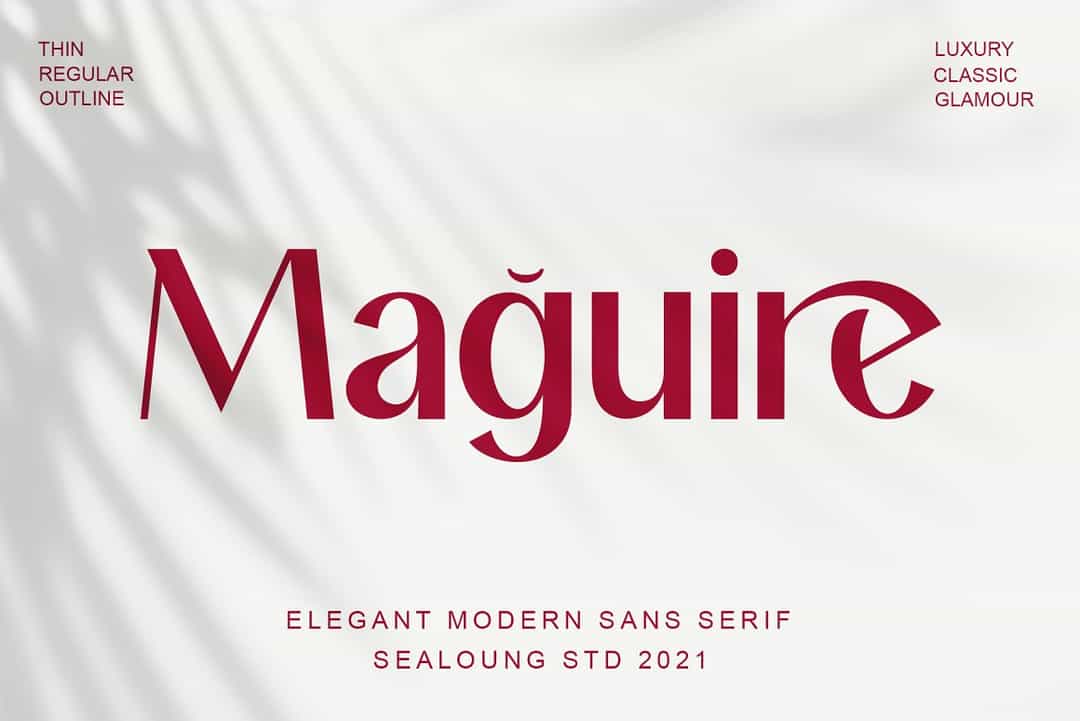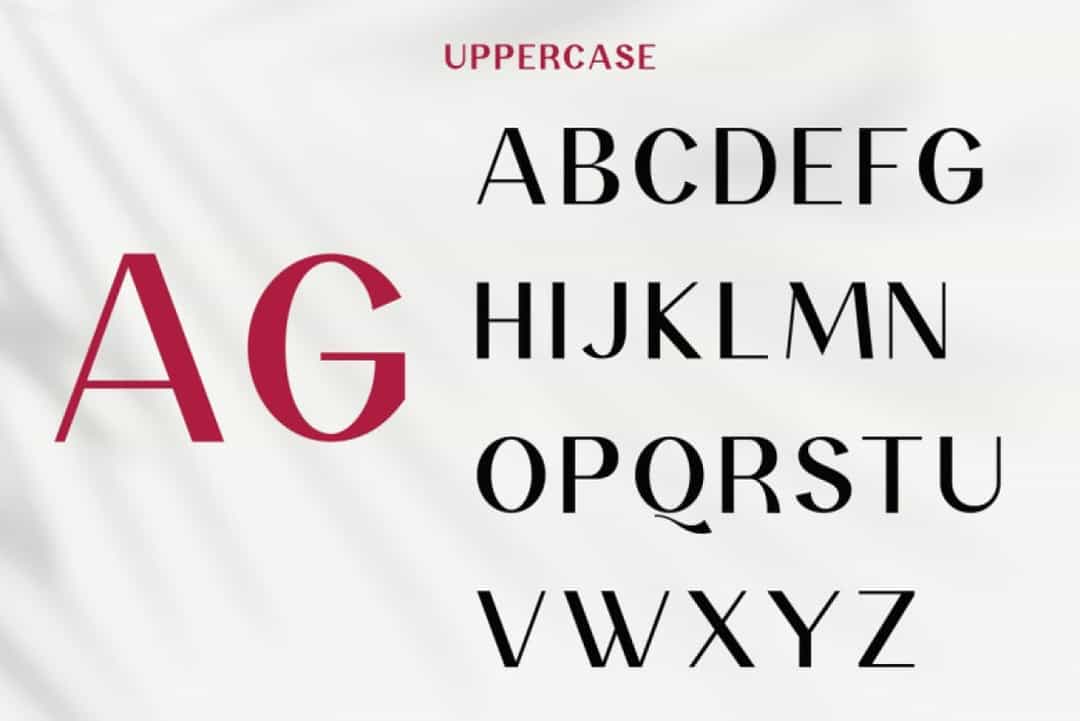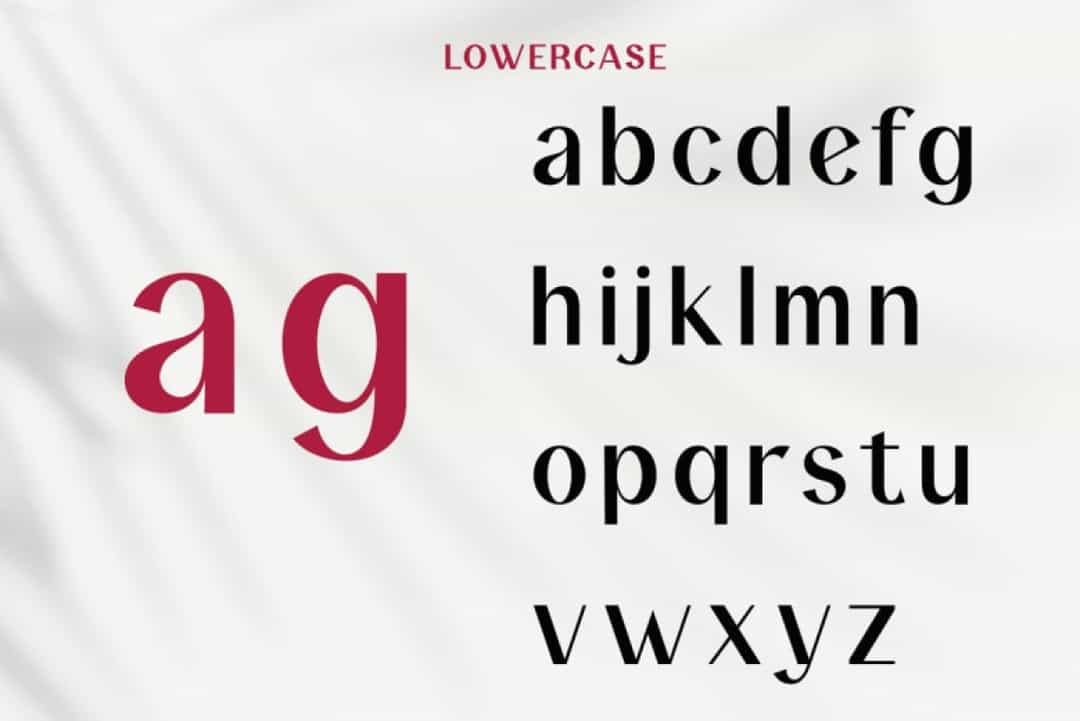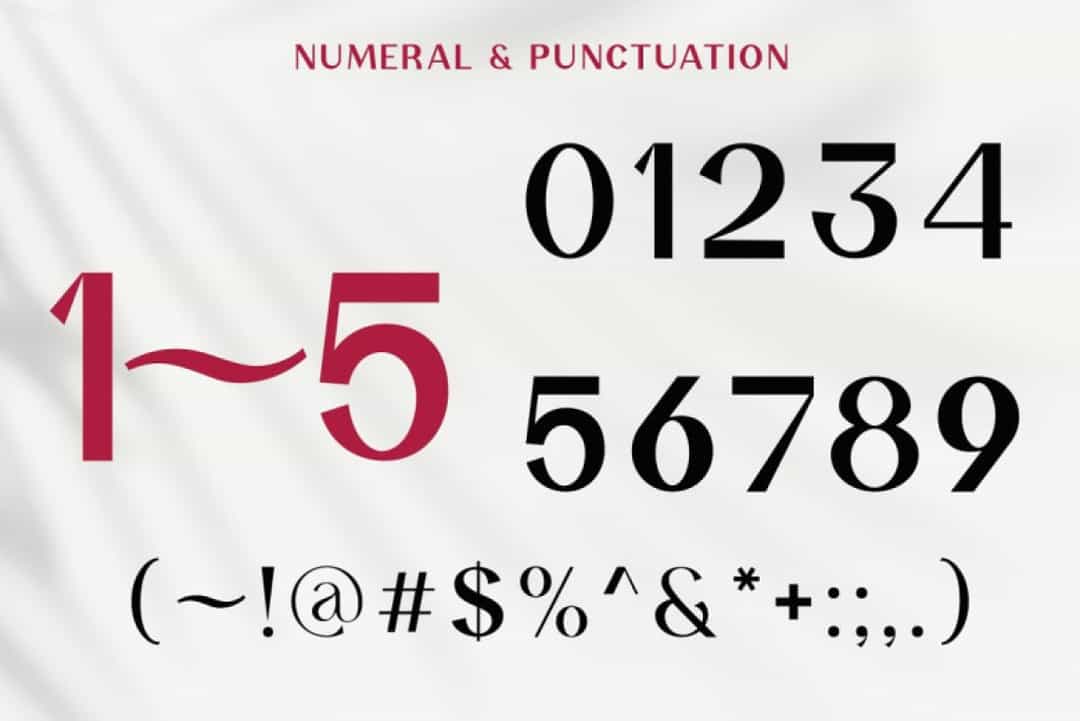
Maguire is an elegant modern sans serif font featuring gorgeous ligatures and multilingual support, perfect for small to large size font usage. Maguire font is an excellent choice for logos, branding projects, design work, clothing branding packaging for products Magazine headers or simply adding stylish text over any background image.